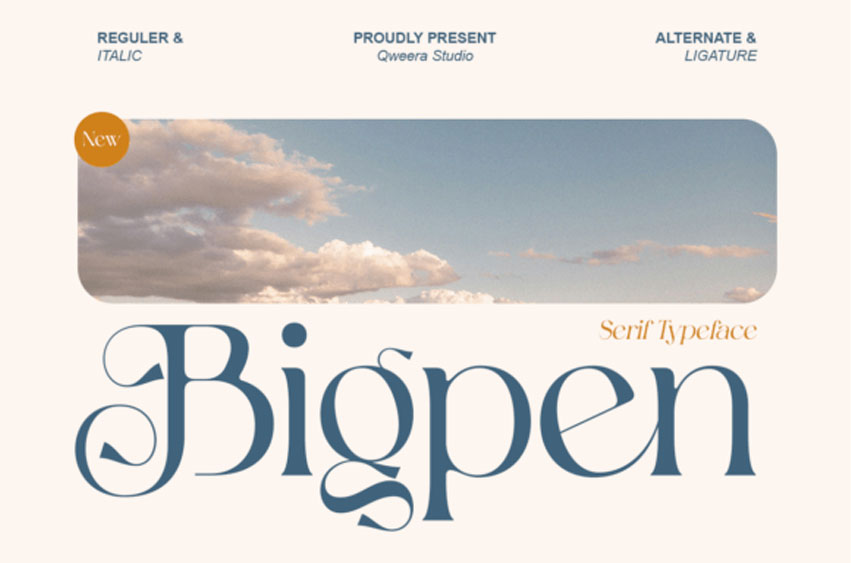
Bigpen Font
Bigpen Font is a modern elegant swash serif typeface designed for stylish branding and editorial layouts. With smooth curves and decorative terminals, it delivers refined typography with luxury appeal.
Perfect for logos, fashion branding, packaging design, and boutique identity systems, Bigpen brings elegant character with modern clarity.
Its swash alternates and ligatures provide flexibility for creative typography.